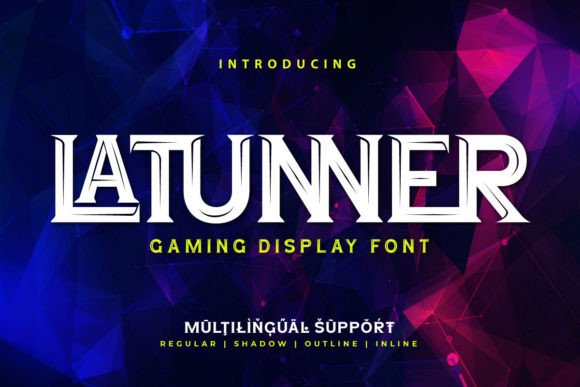
Unleash the Power of Expression with Latunner: Your Gateway to a Bold and Captivating Typographic World
Embark on an extraordinary typographic odyssey with Latunner, a Gaming Display style font that electrifies your projects with its sharp, bold, and spirited character. Step into a realm where your designs transcend the ordinary and embrace a futuristic allure, evoking the vibrant energy of a game or movie screen. With Latunner, the possibilities are limitless, as it effortlessly elevates your creations to new heights of visual appeal.
A Font with Unparalleled Versatility: Adapting to Your Creative Vision
Latunner is a font family that shatters the boundaries of creative expression. With four distinct family variants—regular, inline, outline, and shadow—this font provides unparalleled flexibility, allowing you to tailor your designs to perfection. Experiment with the regular variant for a classic and timeless look, or embrace the boldness of the inline variant to create striking headlines that demand attention. Unleash your creativity with the outline variant, perfect for adding a touch of sophistication and elegance to your projects. And for those seeking a dramatic and impactful statement, the shadow variant stands ready to cast a powerful visual presence.
Empower Your Designs with Limitless Creativity: Uncover the Magic of Ligatures
With Latunner's captivating ligature feature, you hold the key to unlocking typographic artistry. Transform ordinary text into captivating compositions by activating the ligature feature. Witness the seamless blending of characters, creating unique and visually striking letter combinations that elevate your designs to new heights of creativity. Add a personal touch to your projects, ensuring that every word carries the weight of individuality and style.
Expand Your Horizons: Embrace the Global Appeal of Latunner
Latunner transcends linguistic boundaries, embracing a diverse world of languages. Unleash the power of communication across cultures, as this remarkable font supports multiple languages, allowing you to connect with a global audience. Break free from linguistic barriers and let your designs resonate with people from all corners of the world. Share your creative vision with the world, using Latunner as your universal language of expression.
Take Your Projects to the Next Level: Experience the Latunner Revolution
With Latunner, mediocrity becomes a distant memory. This extraordinary font propels your designs into a realm of power and style, leaving a lasting impression on your audience. Whether you're crafting captivating logos, eye-catching headlines, or immersive game interfaces, Latunner stands as your steadfast companion, transforming your projects into visually stunning masterpieces. Join the ranks of creative visionaries who have harnessed the power of Latunner, propelling their projects to the forefront of innovation and style.